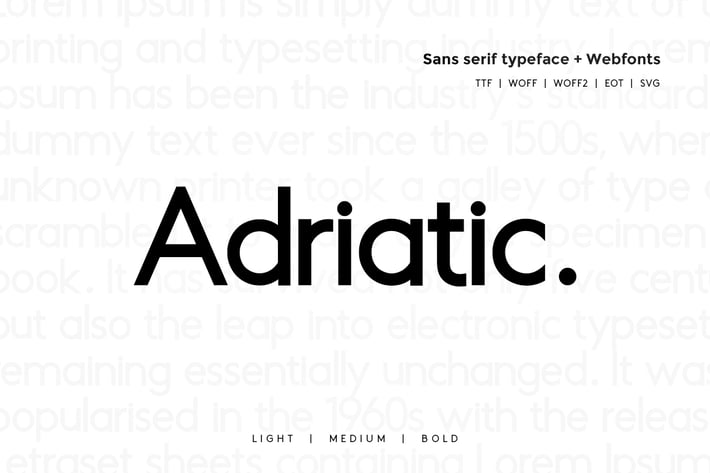
Adriatic - Modern Typeface + WebFonts
Adriatic Sans Typeface
Another modern fantastic sanserif typeface from Unbranded, which delivers a remarkable unique typography with 3 font weights. The pack includes OTF, TTF and Web Fonts (all EOT, SVG, TTF, WOFF included).